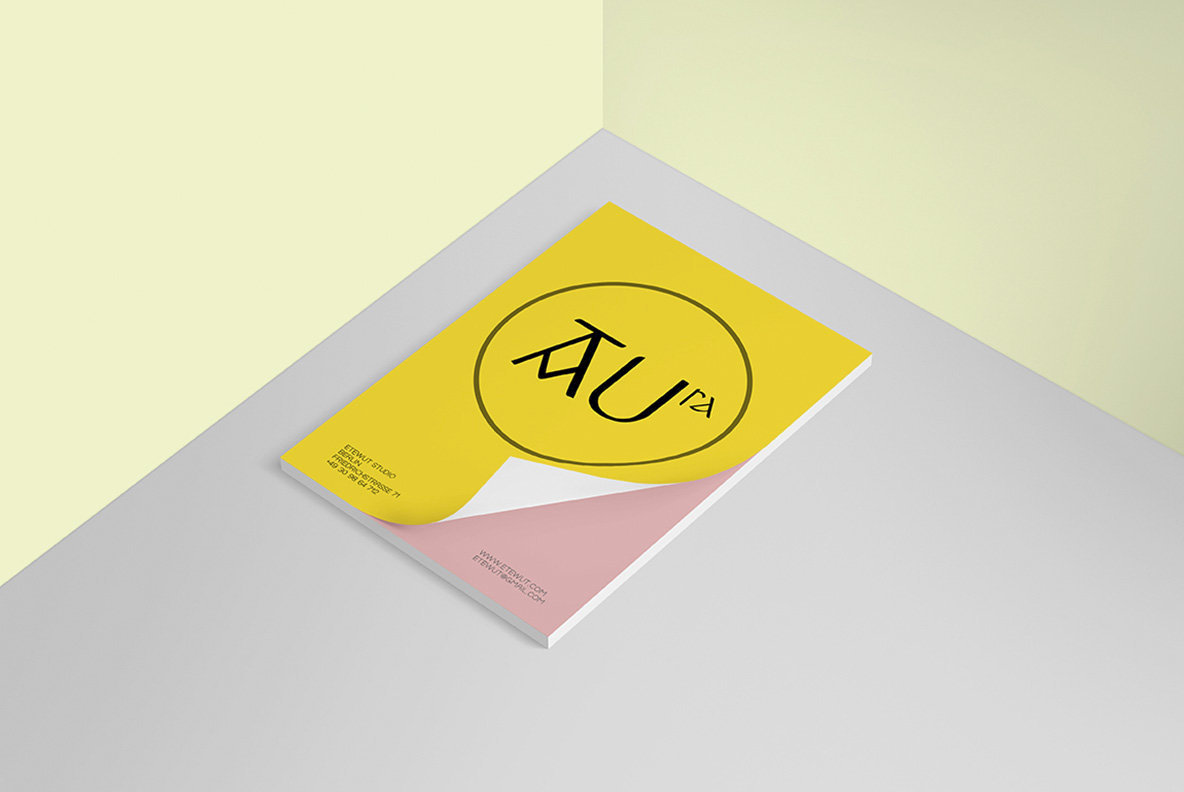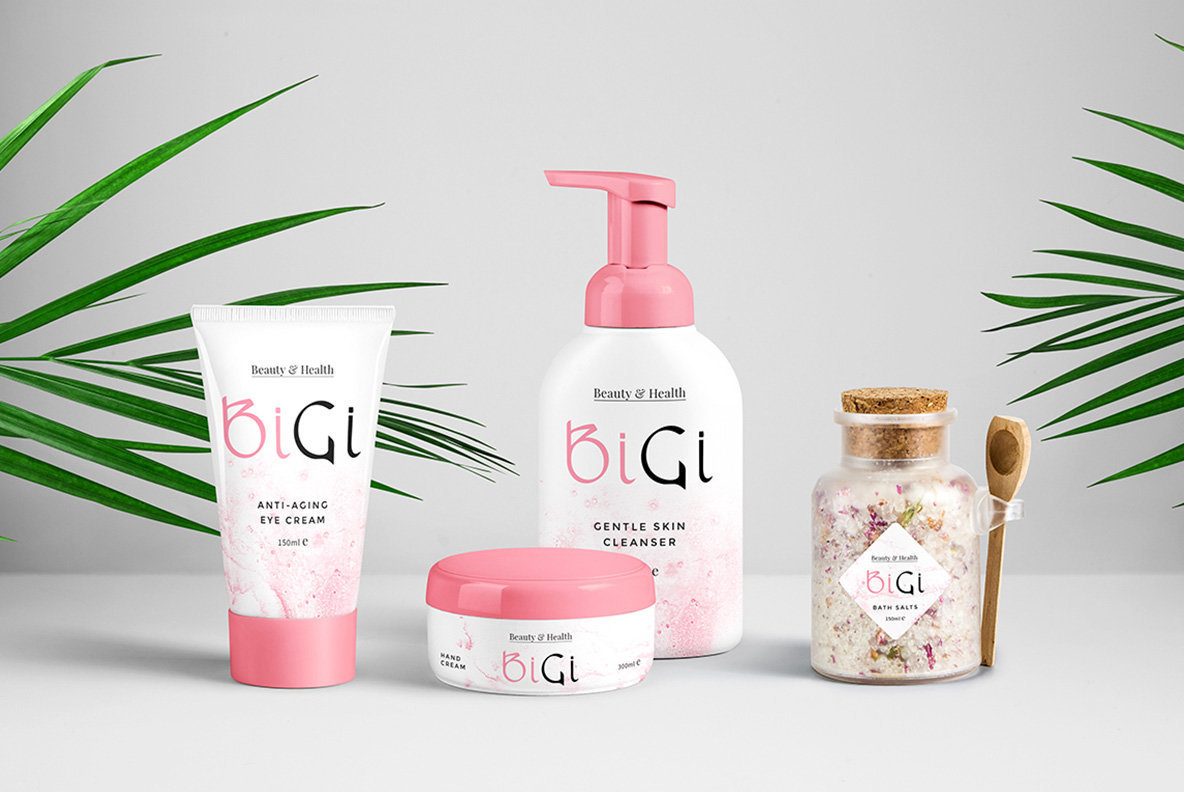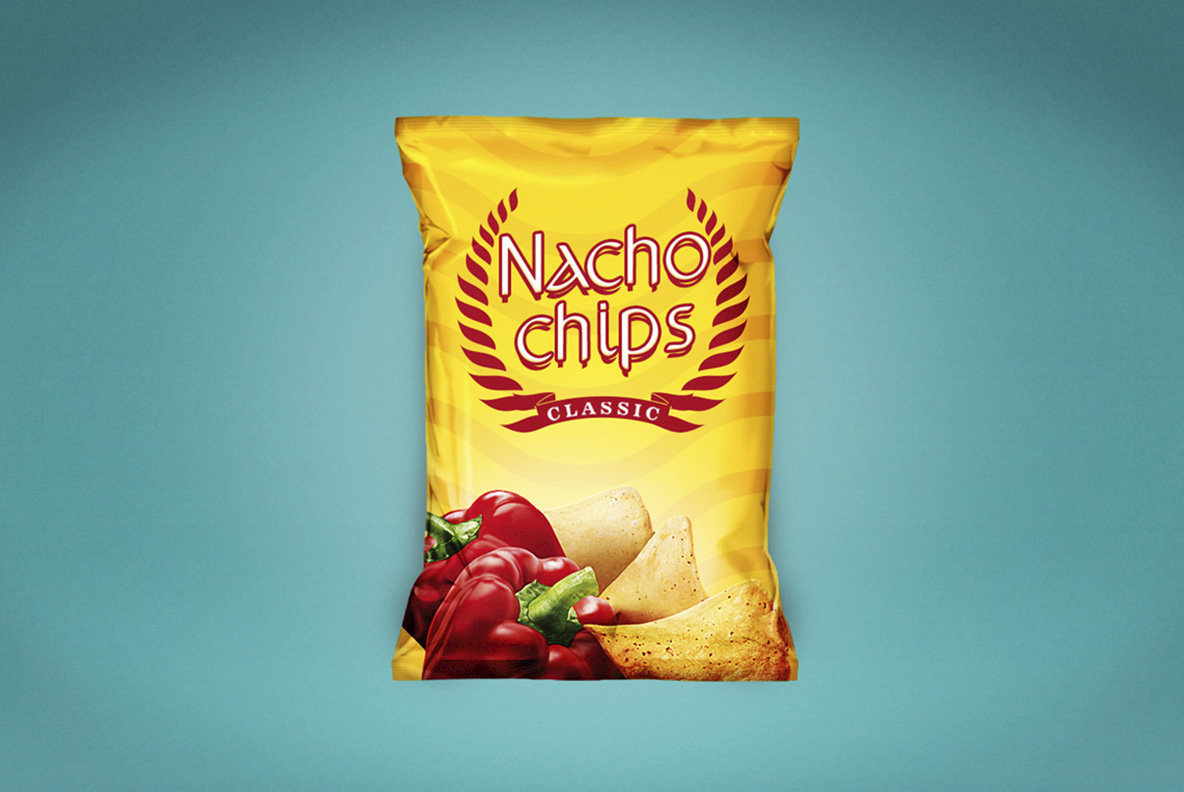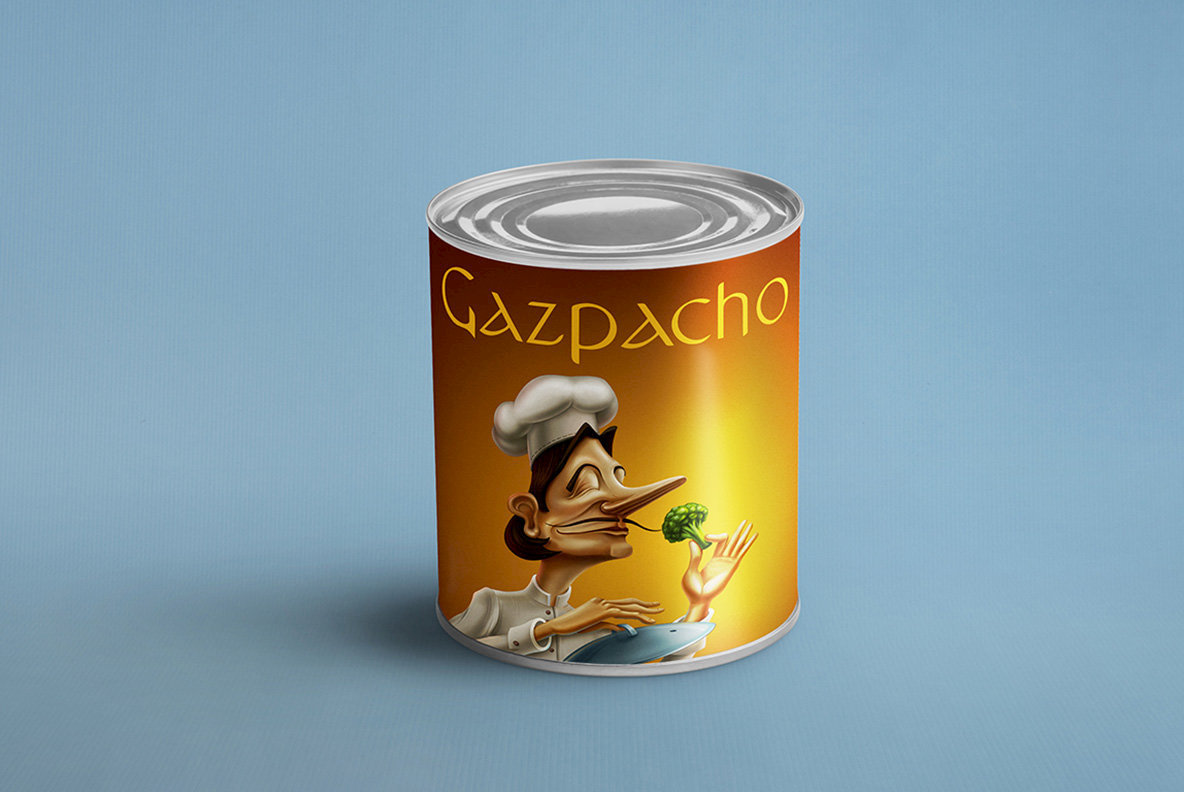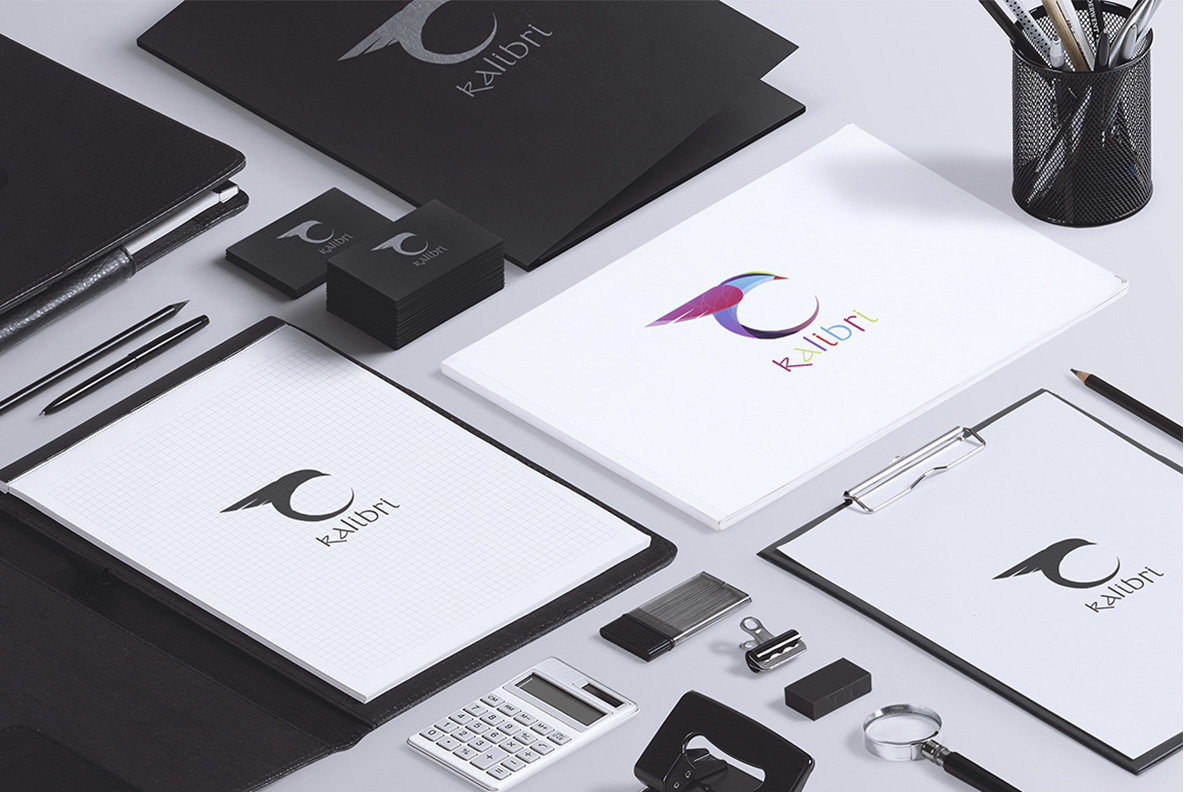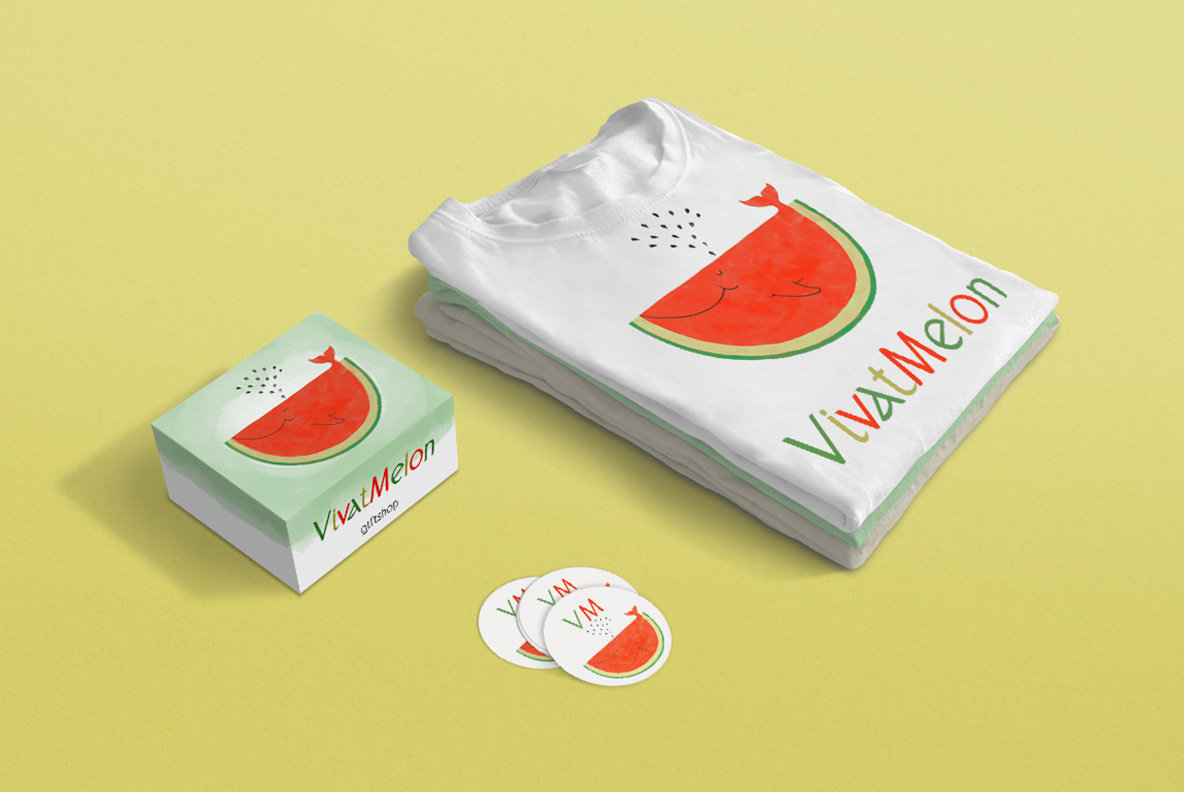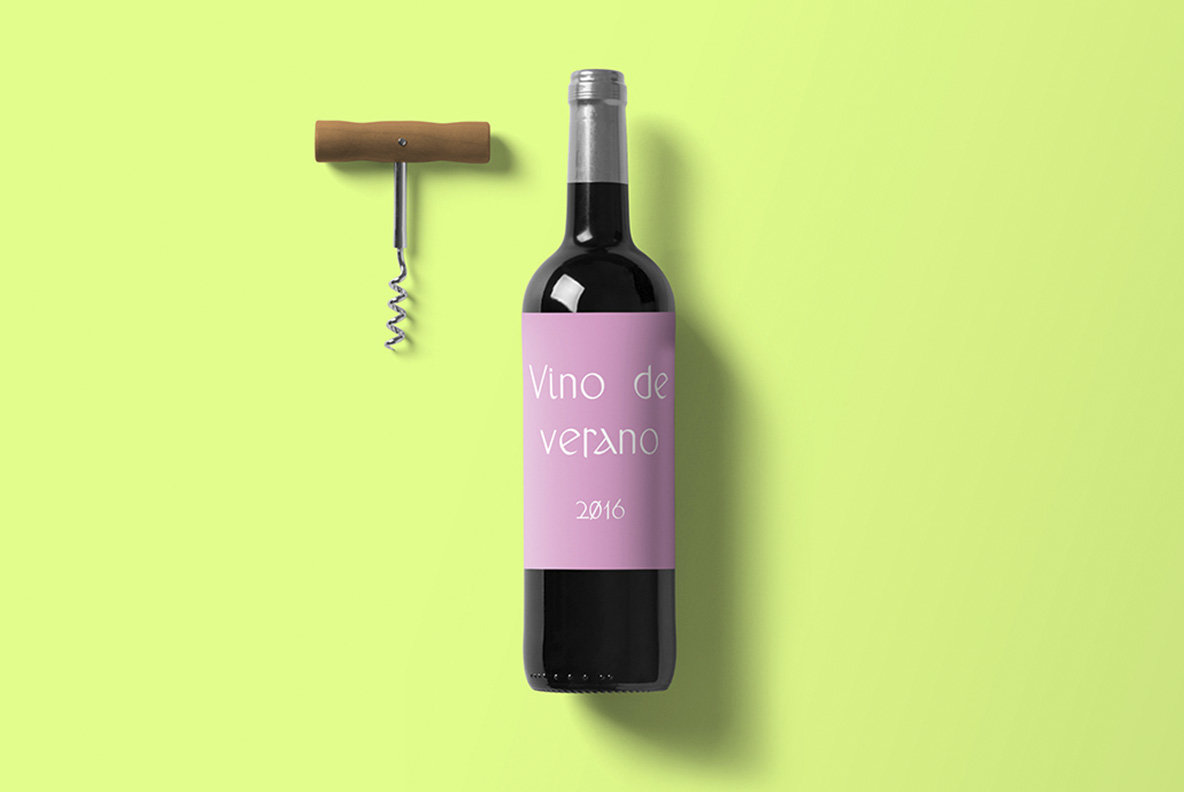
Anchor Font
Anchor is a distinctive display font drawing inspiration from the enchanting world of Russian fairy tales and Cyrillic lettering. Infused with a whimsical spirit, this font is sure to add a touch of magic to your upcoming design projects. Its versatility makes Anchor ideal for a variety of applications, ranging from corporate identity to festive Christmas cards. With support for numerous European languages, it offers the flexibility needed for a global audience.Anchor: A Display Font Inspired by Russian Fairy Tales